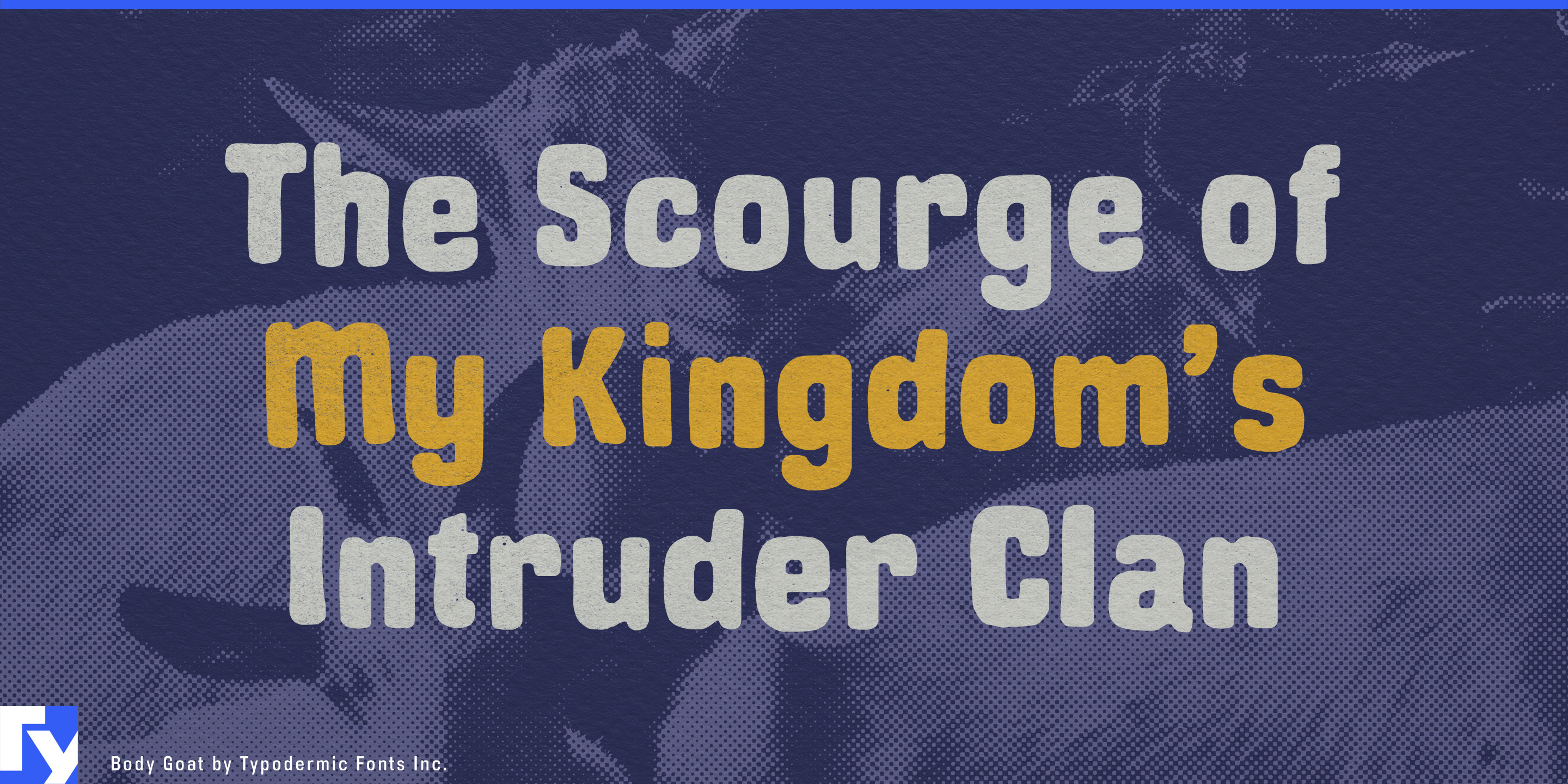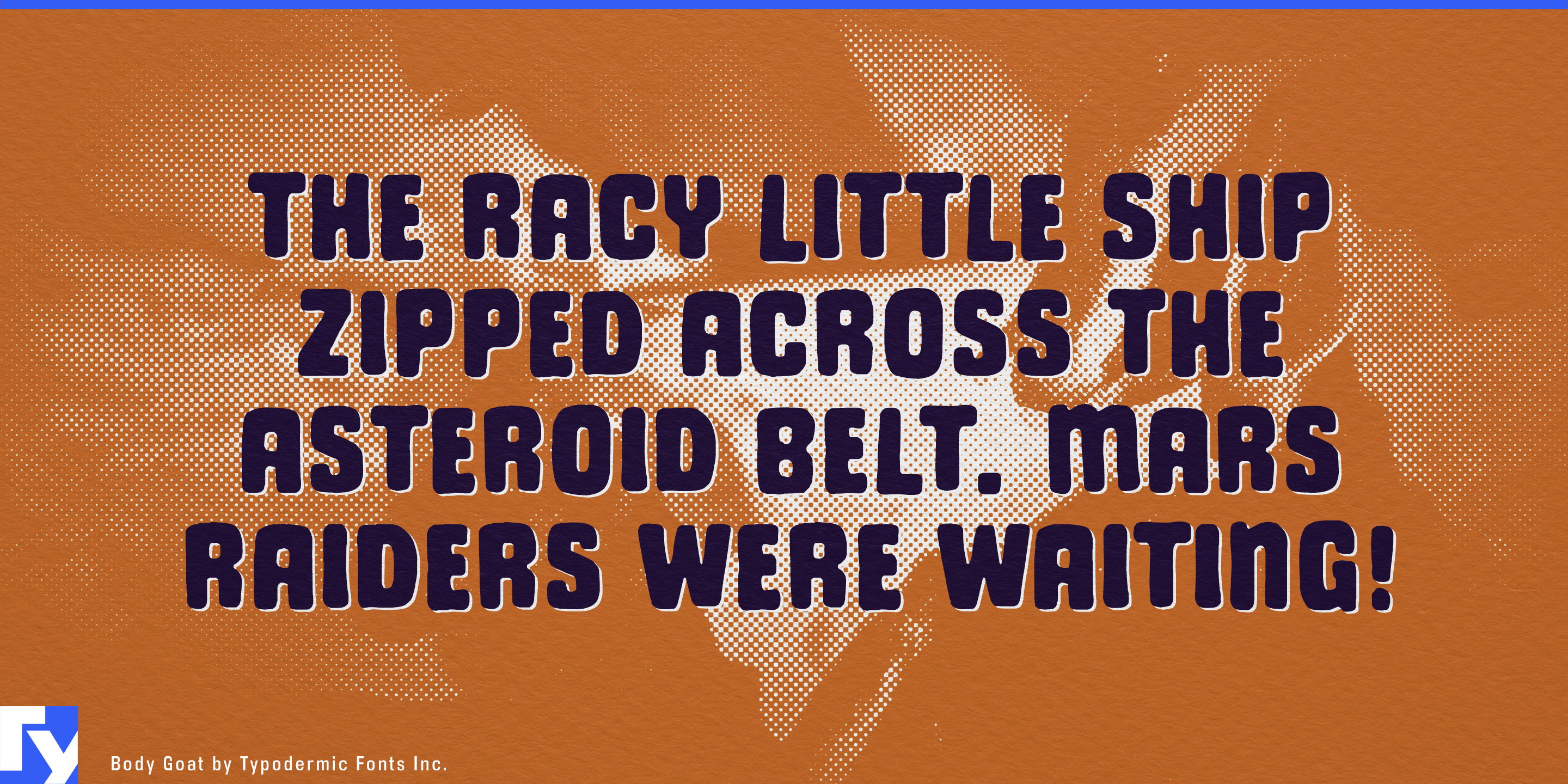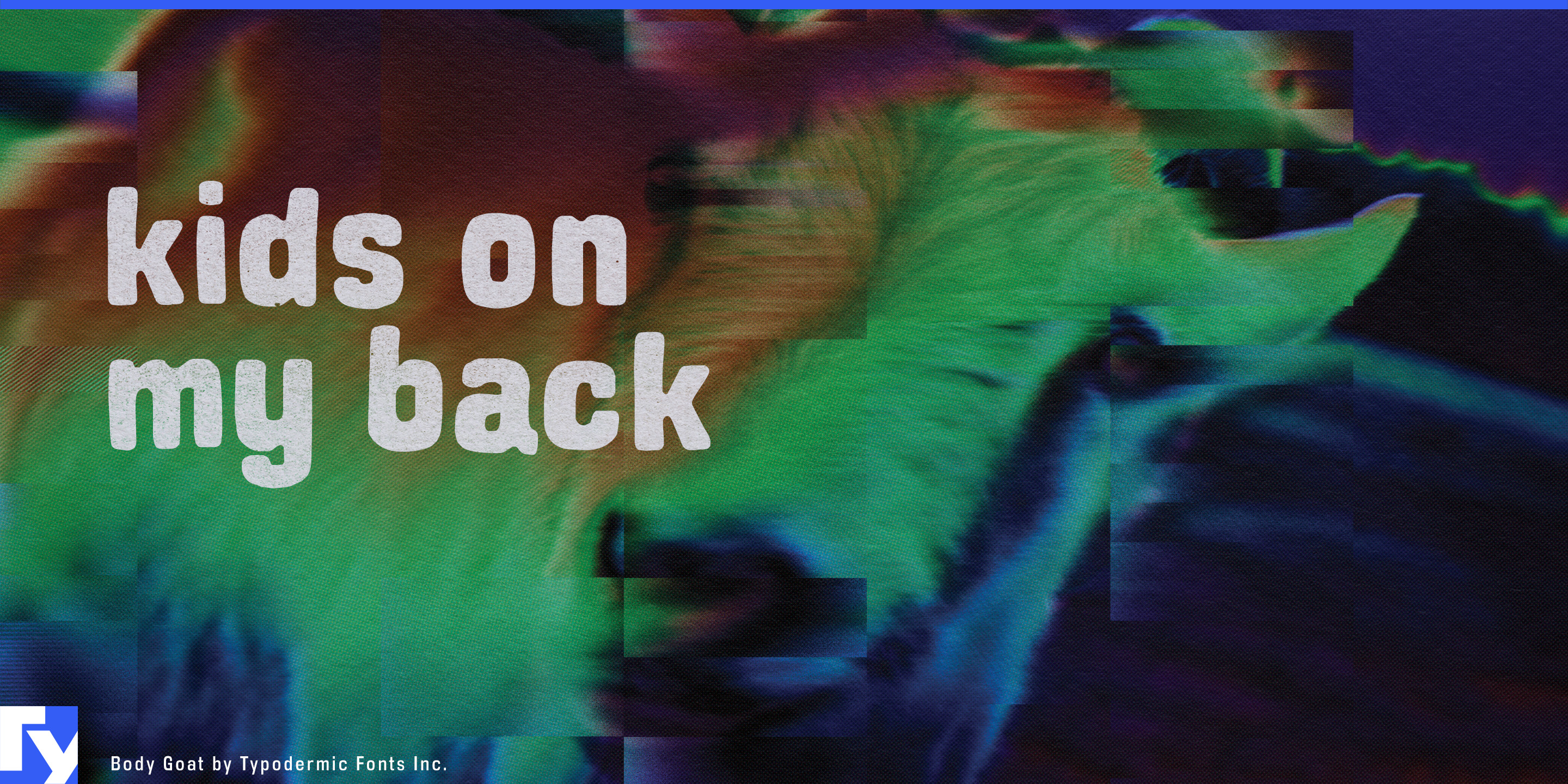
Body Goat
A strong color palette can lose some of its force when the typography occupies too little of the surface. Thin lettering and dry-brush textures may technically use the accent color, but there simply isn’t much of that color on the page. Body Goat takes the opposite approach. Its compact, heavily filled letterforms put broad areas of color into the composition while keeping enough irregularity around the edges to feel painted rather than mechanically solid.
Body Goat is less about showing the path of a brushstroke than about the paint itself as material. The letters feel heavily loaded, with substantial interiors and slightly unruly contours that suggest pigment pushed across a surface. In a two- or three-color layout, a headline can become a major part of the palette rather than a thin typographic layer sitting on top of it.
That makes Body Goat especially useful for screen-printed graphics: T-shirts, tote bags, skate decks, surf graphics, gig posters, merchandise, and limited-run prints where a small number of strong colors need to do a lot of work. Short words and compact headlines have enough mass to balance illustrations, halftones, photographs, and saturated backgrounds.
Color-driven packaging offers similar possibilities. Hot sauce labels, snack bags, candy, frozen treats, canned drinks, kids’ products, and craft supplies can use Body Goat almost like another piece of color blocking. Instead of placing type inside a colored shape, the lettering itself can provide much of that shape.
There is also a natural connection to paint, craft, and mural work: brushes, rollers, craft paint, decorating products, DIY workshops, school art programs, public murals, summer camps, and museum activities. Body Goat’s dense forms suit projects built around strong pigment and physical coverage rather than delicate brushwork.
At display size, Body Goat sits somewhere between lettering and graphic shape. A short headline can carry enough visual weight to anchor a busy composition, while the painted contours keep that mass from feeling sterile. It is for designs where the typography needs to do more than wear a color; it needs to help put that color on the surface.